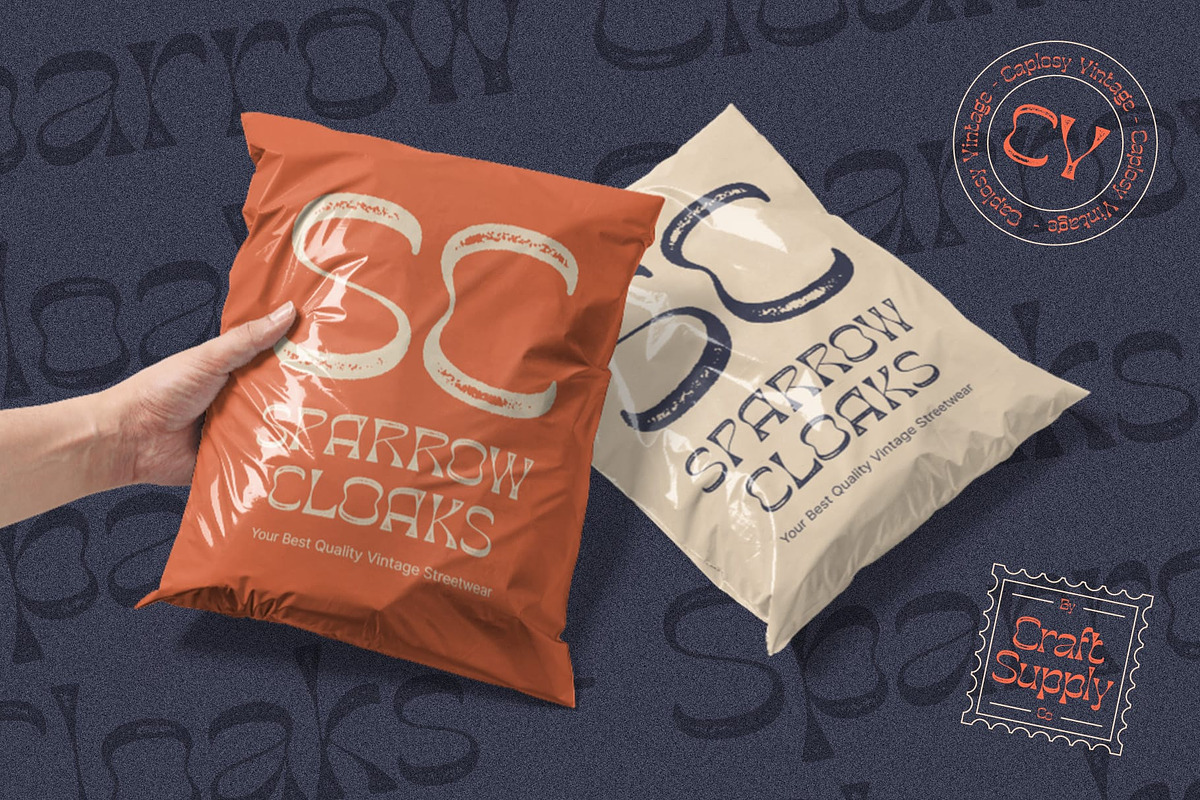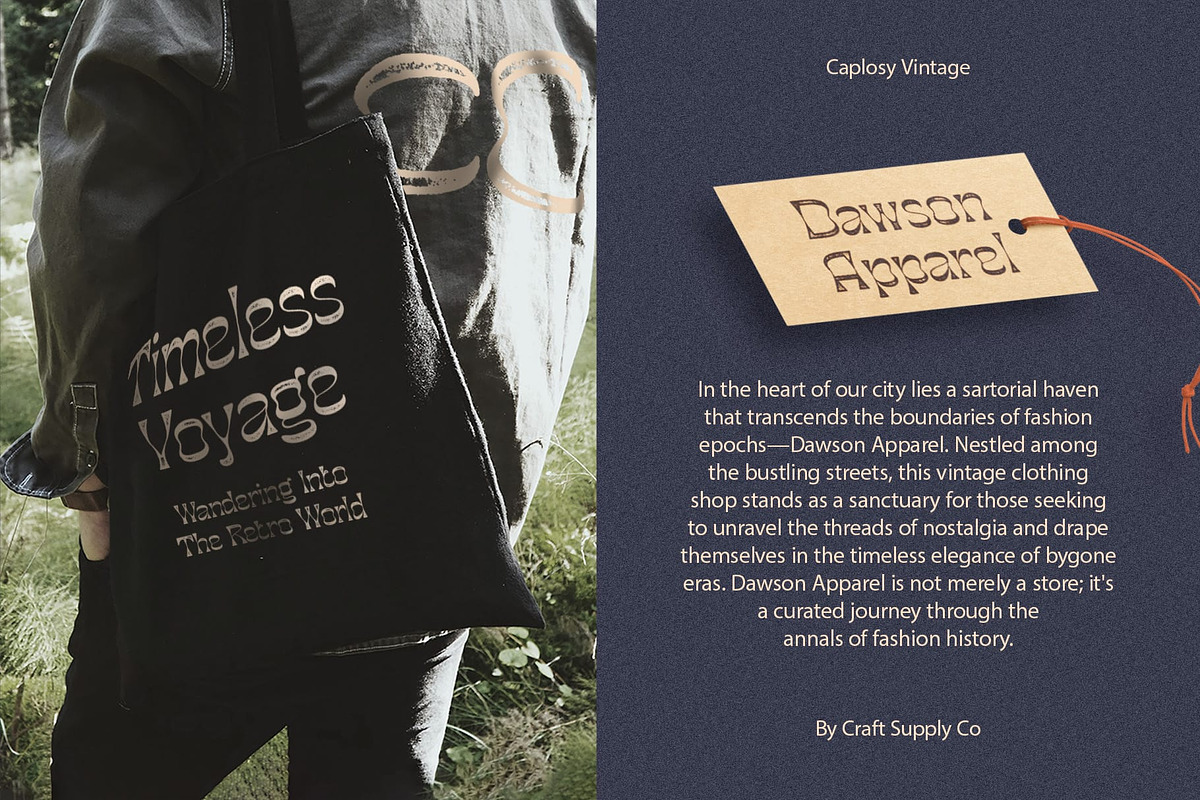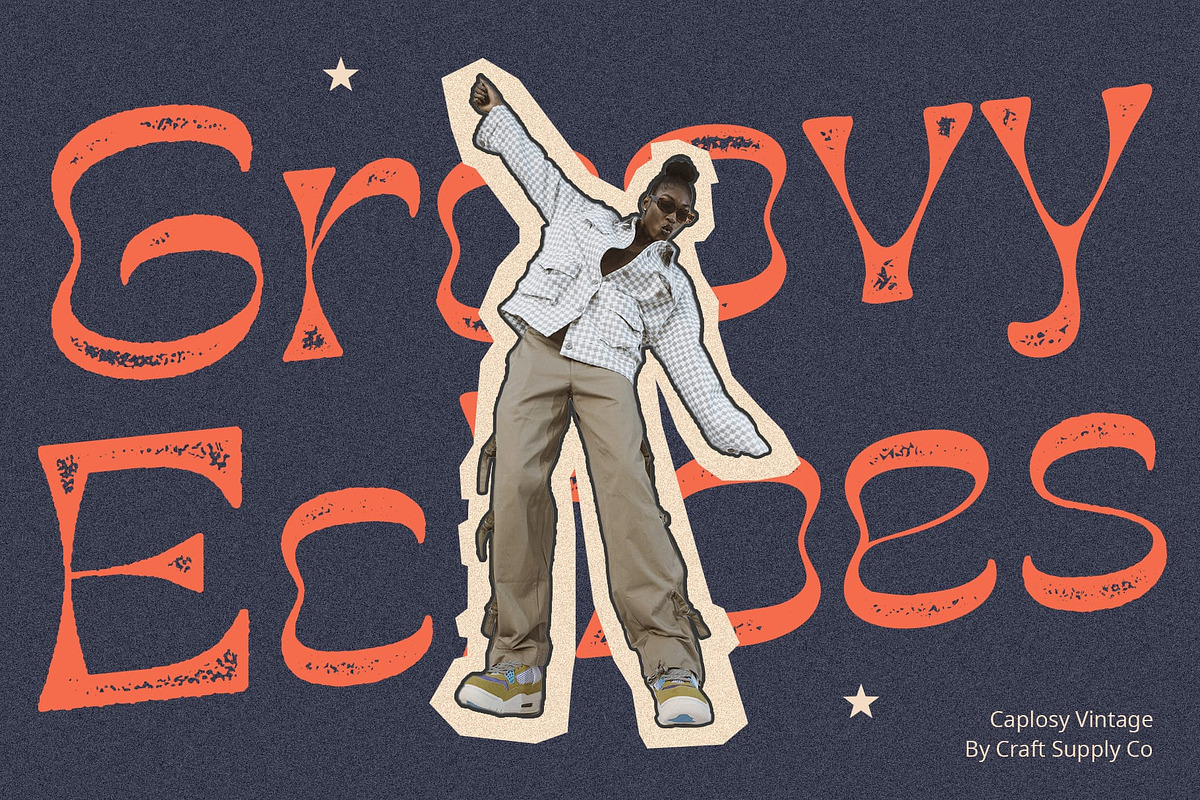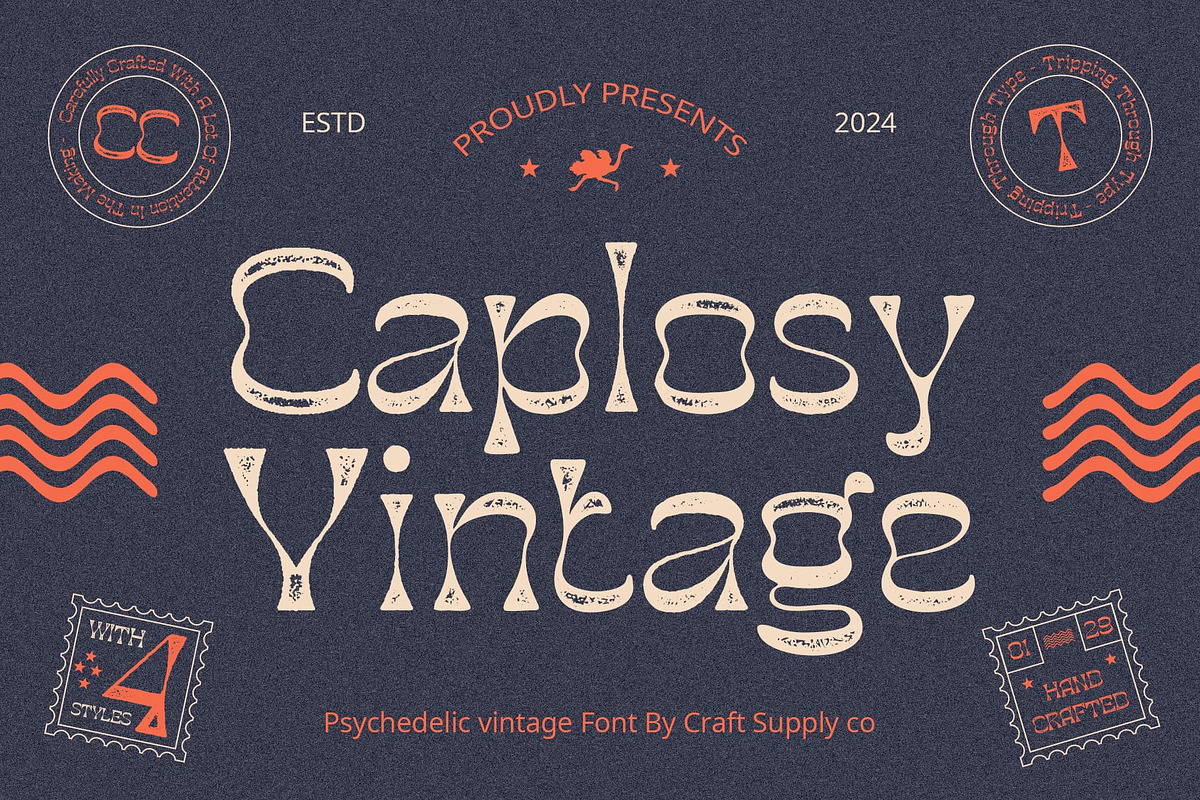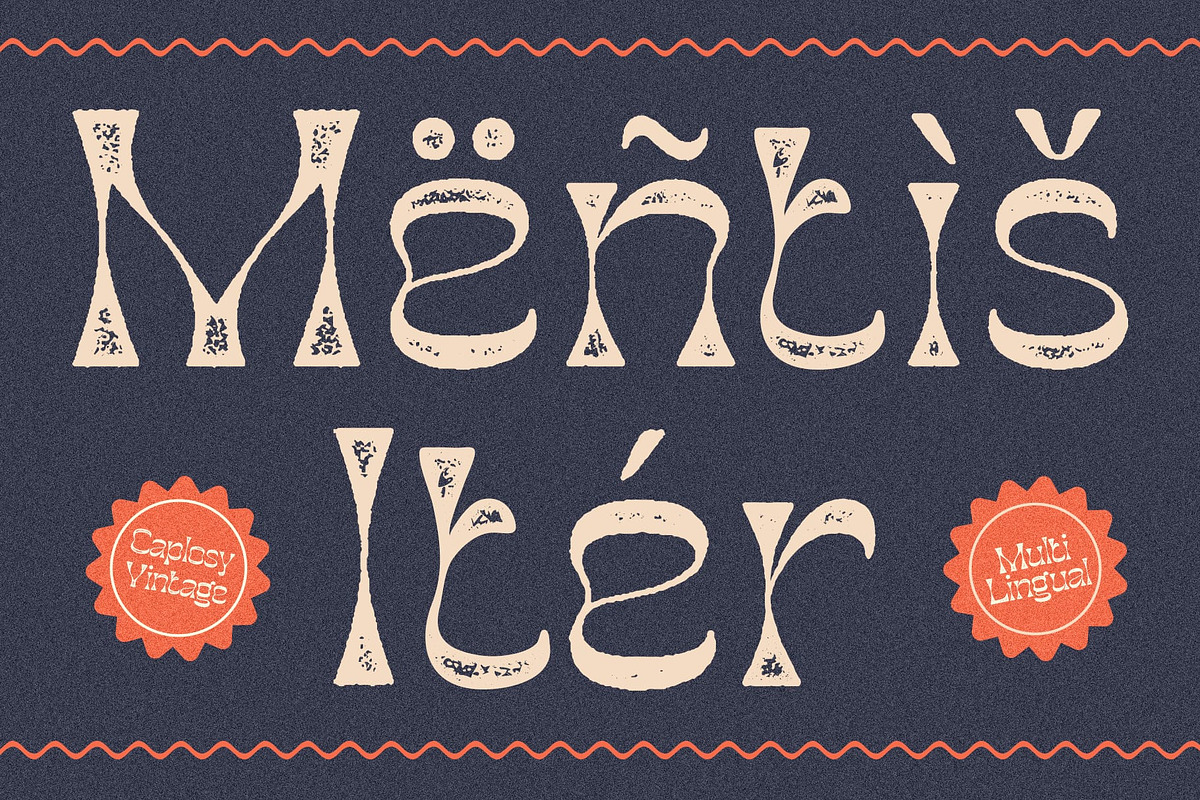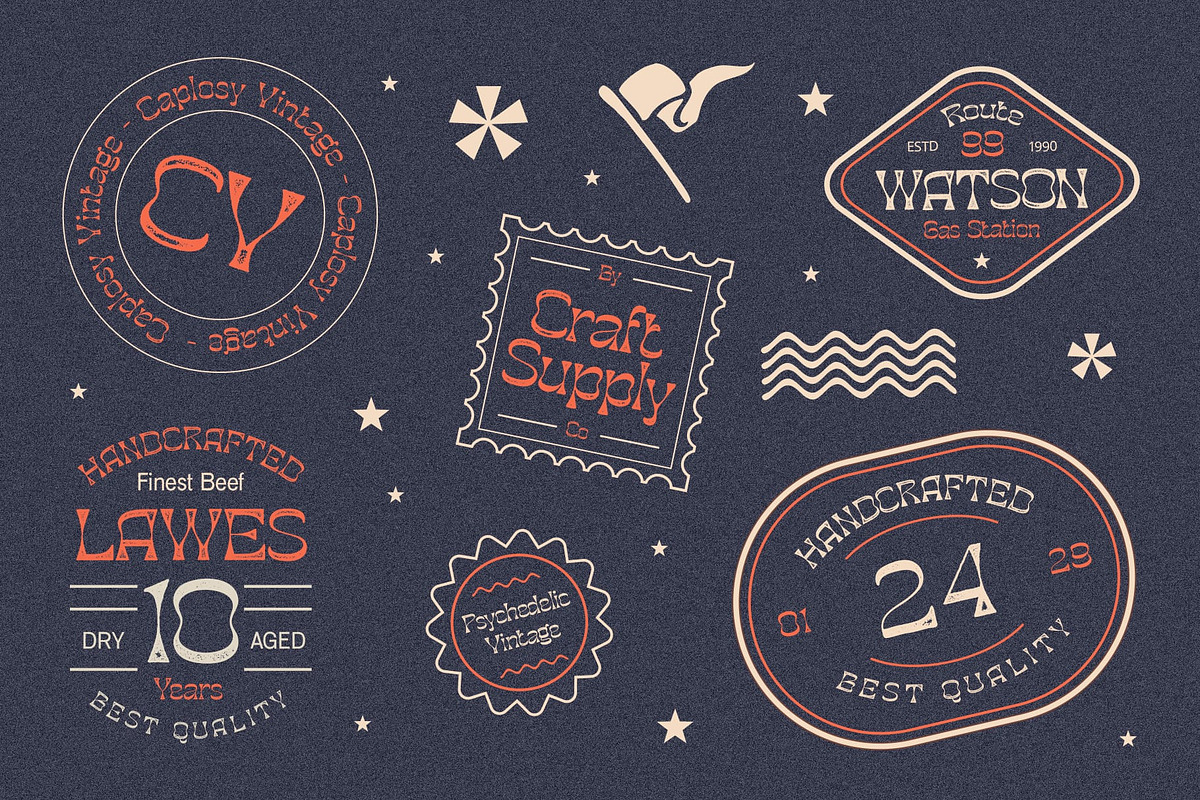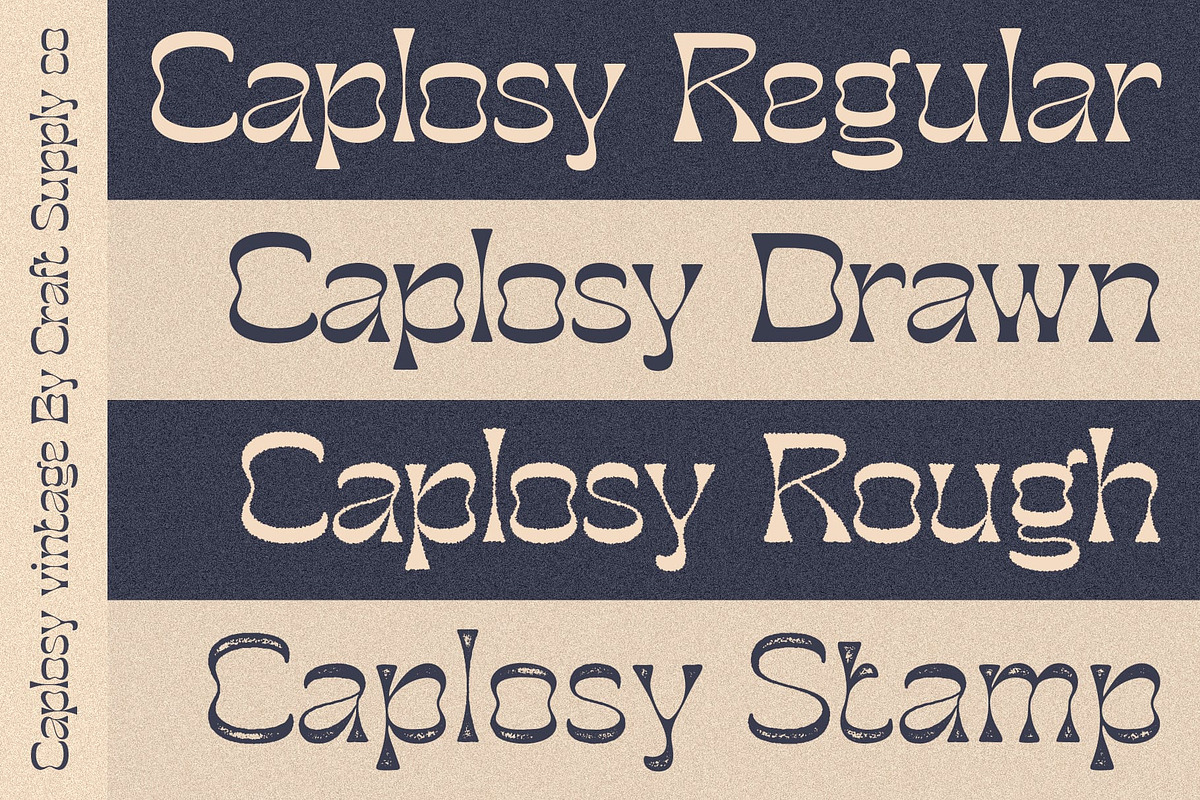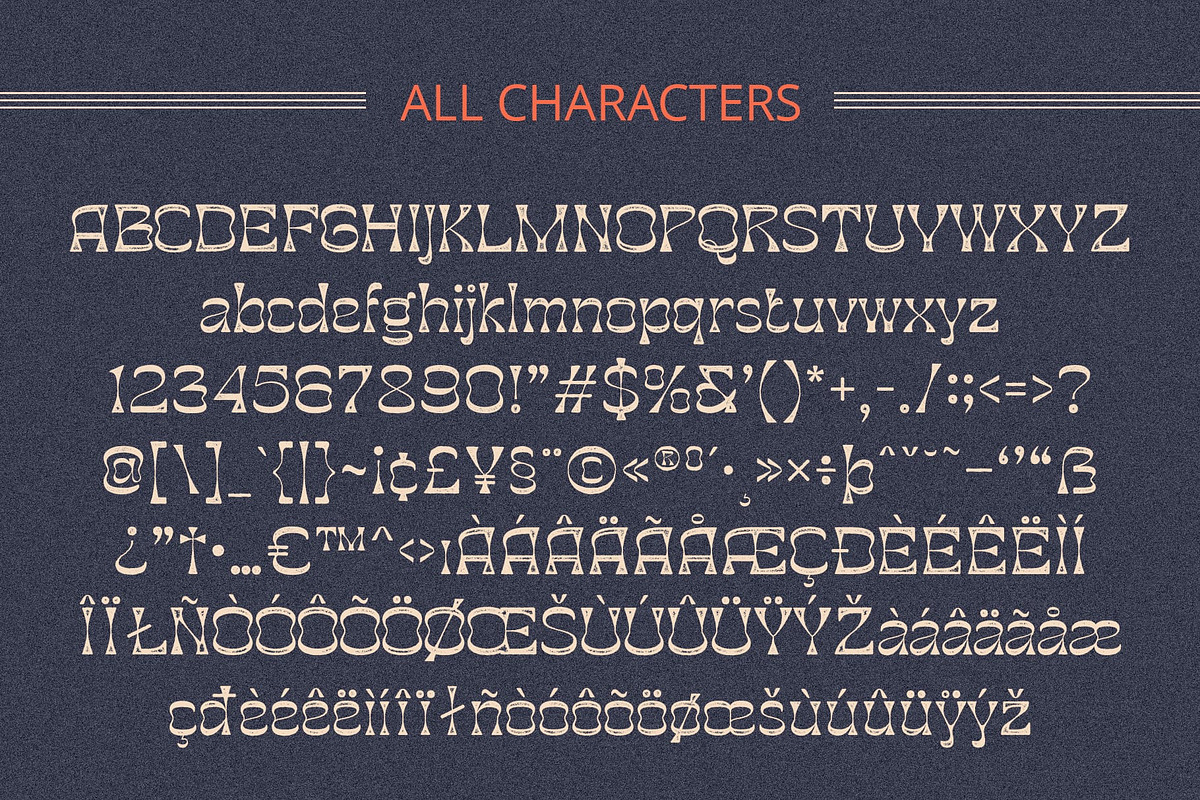
Caplosy Vintage
Caplosy Vintage: A Funky Journey Through Psychedelic Vibes
A Funky Prelude Caplosy Vintage invites you to a typographic dance, where each letter resonates with funky vibes, echoing the spirit of the psychedelic era.
The Psychedelic Inspiration Immerse yourself in the captivating influence of psychedelic aesthetics. this font display seamlessly blends these vibes, creating a font that transcends time and resonates with vintage charm.
Vintage Rough Elegance Caplosy Vintage doesn’t just capture attention; it does so with finesse. The vintage rough effect adds an air of authenticity, ensuring your display projects exude both elegance and a touch of retro coolness.
Eye-Catching Display Appeal This font isn’t merely a font; it’s an eye-catching statement. Whether it graces posters, banners, or digital displays, its funky charm elevates your message with an unparalleled visual appeal.
In Conclusion: Caplosy Vintage – Where Funk and Vintage Collide This font is more than a font; it’s a journey into the funky and vintage. With psychedelic inspiration and vintage rough elegance, it transforms your display projects into captivating experiences. Elevate your designs with the irresistible allure of Caplosy Vintage, where every letter tells a funky story.